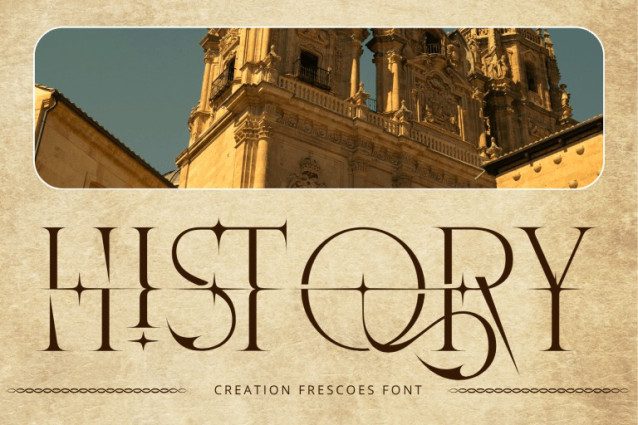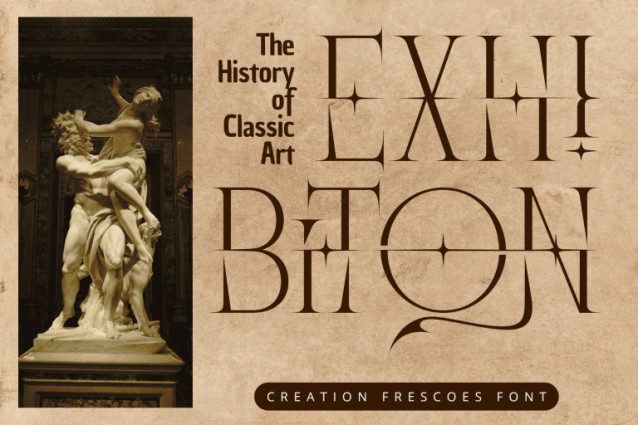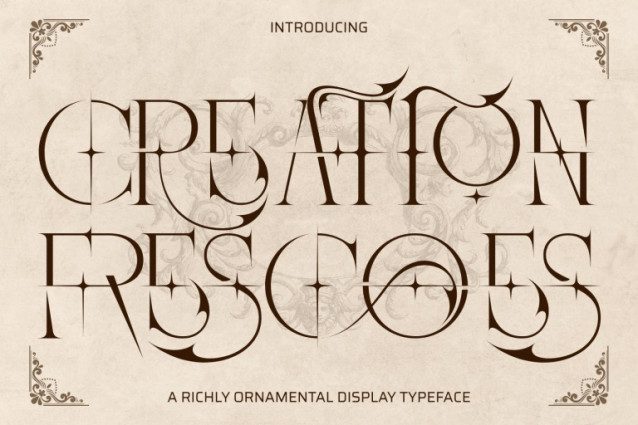
Creation Frescoes Font
CREATION FRESCOES – LUXURY SERIF FONT, a luxurious Decorative Serif Display Font inspired by Renaissance artistry and Gothic aesthetics. Its elegant balance of sharp serifs and flowing curves creates a timeless visual experience — perfect for designers who want to express sophistication and artistic flair. This font combines ornamental beauty with strong structure, making it ideal for logos, editorial titles, posters, or any design seeking a vintage yet refined atmosphere.
🔤Features:
Uppercase & Lowercase Letters
Around 100 Special Ligatures for creative typographic combinations
Numerals & Punctuation for complete versatility
Accented Characters supporting multiple languages
🔤About 100 ligatures combined with Stylistic Alternates Font:
AC AD AL AN AR AS AT AU AV BE CA CE CH CO CT DE DI EA EC ED EE EL EM EN EP ER ES ET FE FO FR GE HA HE HI HO IE IC IL IN IO IR IS IT JU KE LA LE LI LL LO LY MA ME MI NC ND NE NG NO NT NS OC OF OM ON OO OP OR OT OU OW PA PR RA RD RE RI RO RS RT SE SH SI SO SS ST TA TE TH TI TO TR TT UM UN UR VE WI WO